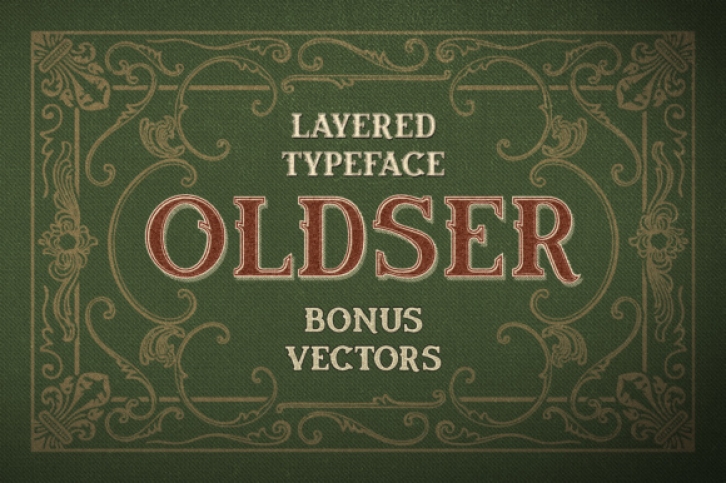
Oldser is a stunning vintage display font.
It’s multi-layered, allowing for endless combinations. The Oldser font is bold and beautiful, and will allow you to add a elegant, vintage touch in seconds.